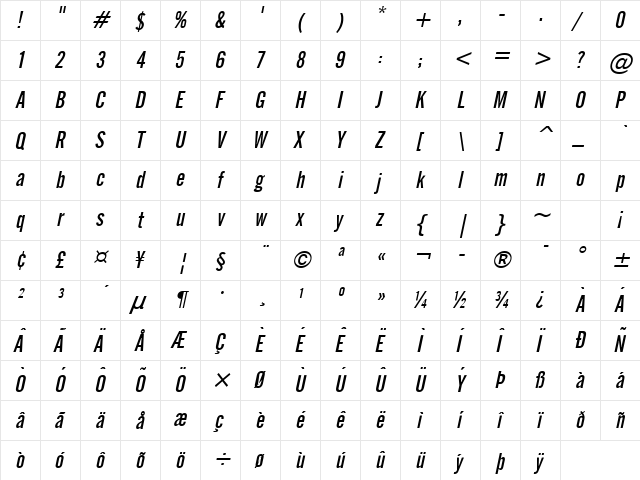
Eng Gothic Italic
Design Context for Eng Gothic Typeface
Eng Gothic takes a clean, functional approach — its unadorned letterforms prioritise legibility and work reliably across screen and print environments. The slanted form adds forward momentum and visual energy.
Font Pairing: Works well alongside a characterful serif or display font that can carry the expressive load while Eng Gothic handles the functional copy.
Pro Tip: Pair Eng Gothic with a display or serif font for headlines — its neutral character makes it an excellent supporting player in complex typographic systems.